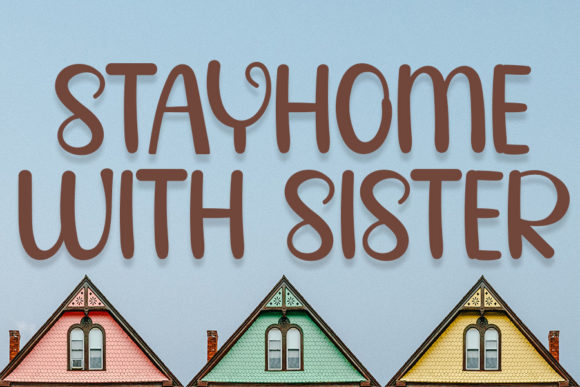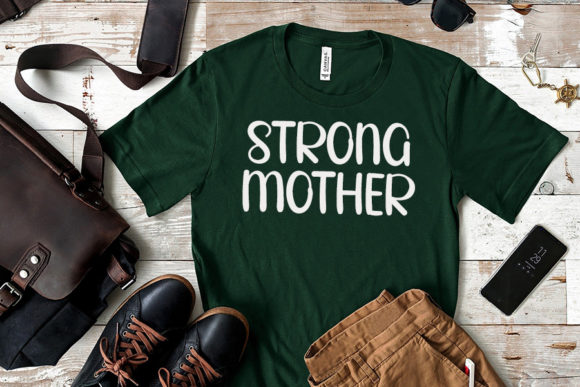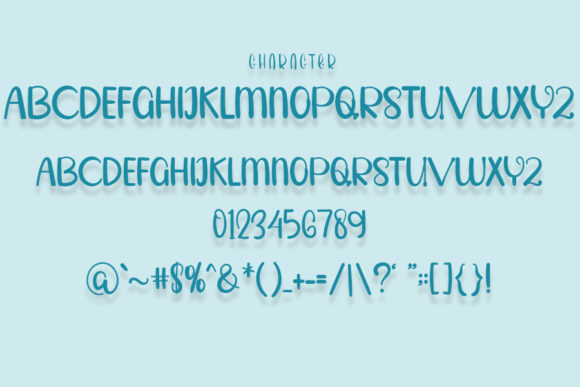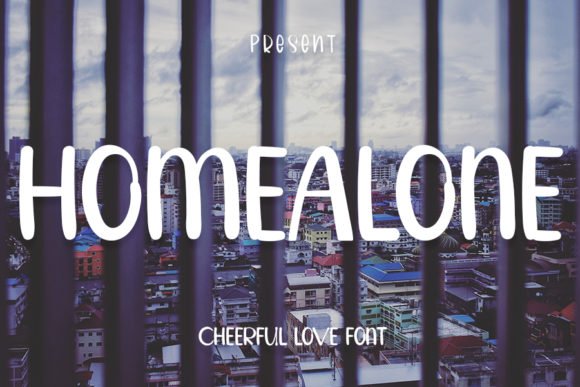
Introduction to Homealone Font
Homealone is a cute and friendly display font.
No matter the topic, this font will be an incredibly asset to your fonts’ library, as it has the potential to elevate any creation .
Homealone Font offers exceptional quality and versatility, making it a valuable addition to your design toolkit. Whether you’re creating for personal projects or commercial use, Homealone Font delivers professional results.